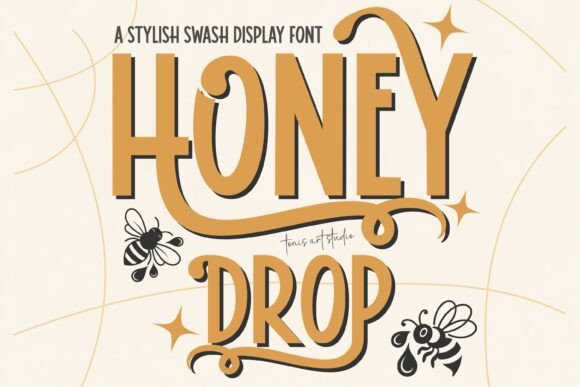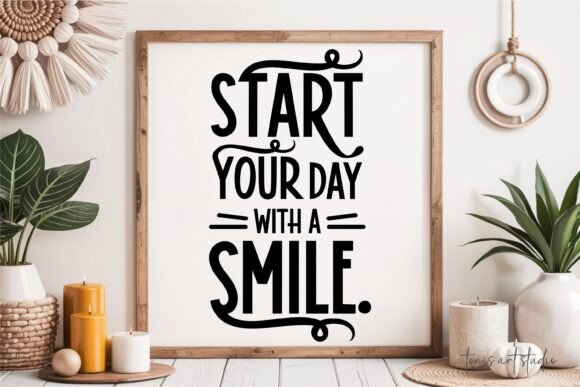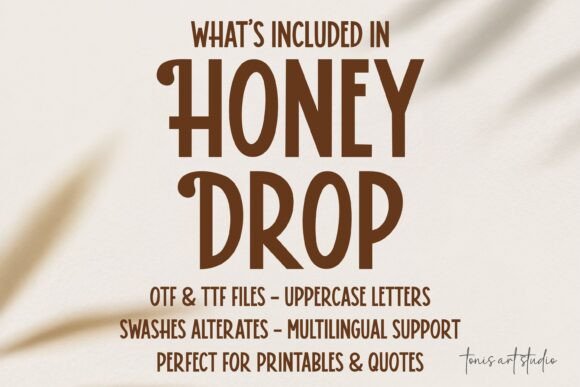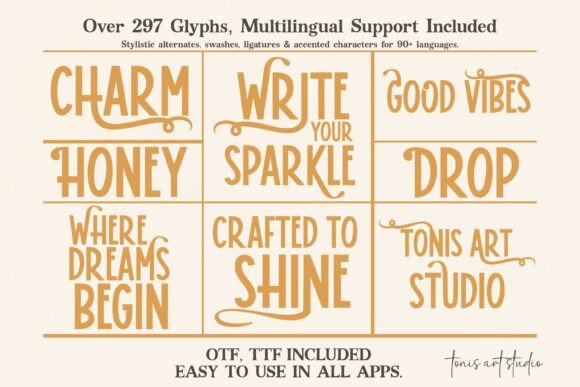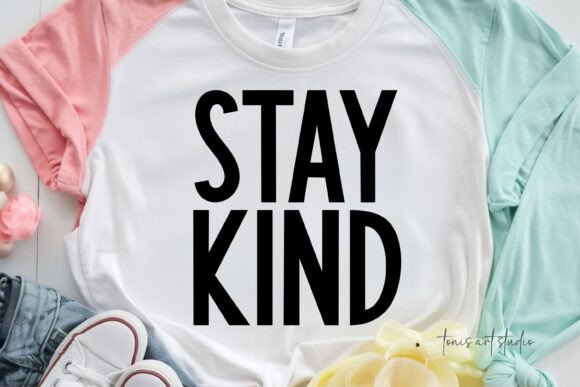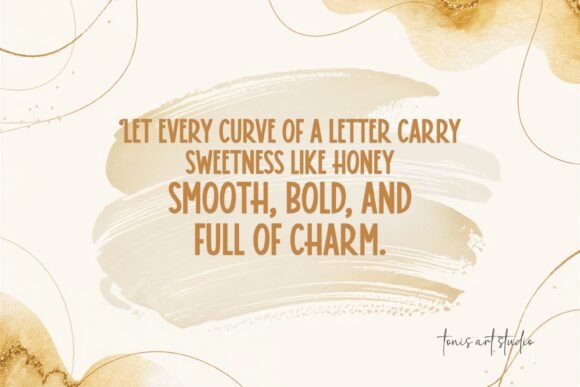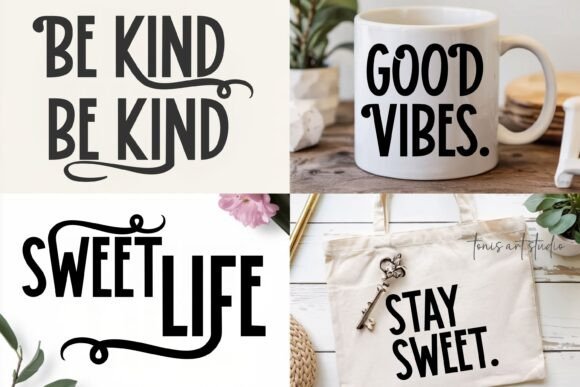
Honey Drop Font
Honey Drop is a sweet and stylish swash display font made for creatives, crafters, and designers. With 291 glyphs, including uppercase letters, punctuation, accented characters, and decorative alternates, it brings bold personality and elegance to every project. Whether you’re designing logos, printable quotes, wedding invitations, or crafting in Cricut or Procreate, Honey Drop will add a smooth, charming touch. This font is ideal for product packaging, planner pages, greeting cards, blog graphics, and social media posts. Comes in OTF and TTF formats, fully compatible with Mac & PC. Let your words shine with the bold curves and sweet flow of Honey Drop!